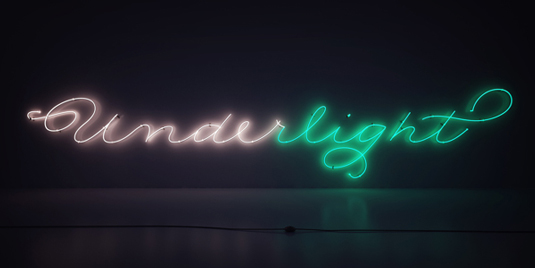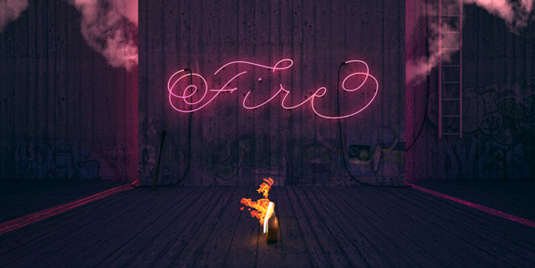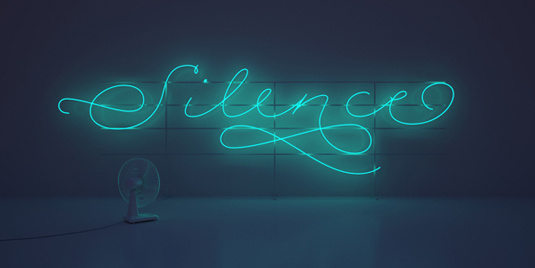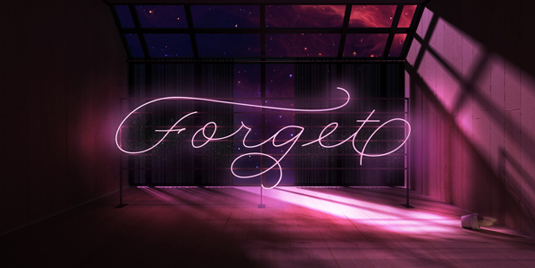
New calligraphy typeface dazzles in neon lights
Type design and technology inspire this new font from Argentinian designer Ale Paul.
Buenos Aires-based designer Ale Paul of Sudtipos is, by his own admission, 'a calligraphy history buff and pop technology freak'. So it's no surprise to see that his latest creation is a combination of the two.
A man behind many gorgeous type designs, Paul's latest - Rolling Pen - was inspired by the rounded, circular, roll-flowing calligraphy from the late 19th century. "Rolling Pen is another cup of mine that runneth with alternates, swashes, ligatures and other techy perks," he explains.
Underlight
Keen to see his creation up in lights, Paul collaborated with designer Tomas Garcia when introducing his new typeface. "Tomas' approach on the reveal of Rolling Pen is inspired on the enlightenment given by neon lights in the dark, through the power of words," says Paul. "The neon lights were originally created to conceptually narrate over darkness. That's why the collection has been coined Underlight; a way to represent light in neon form as the underliner of something important."
Rolling Pen is an elegant and graceful pen-script font with a beautiful flow, which, we have to say, looks amazing in neon lights. It's currently available to purchase here, with a 30 per cent discount offered until August 8th 2013.